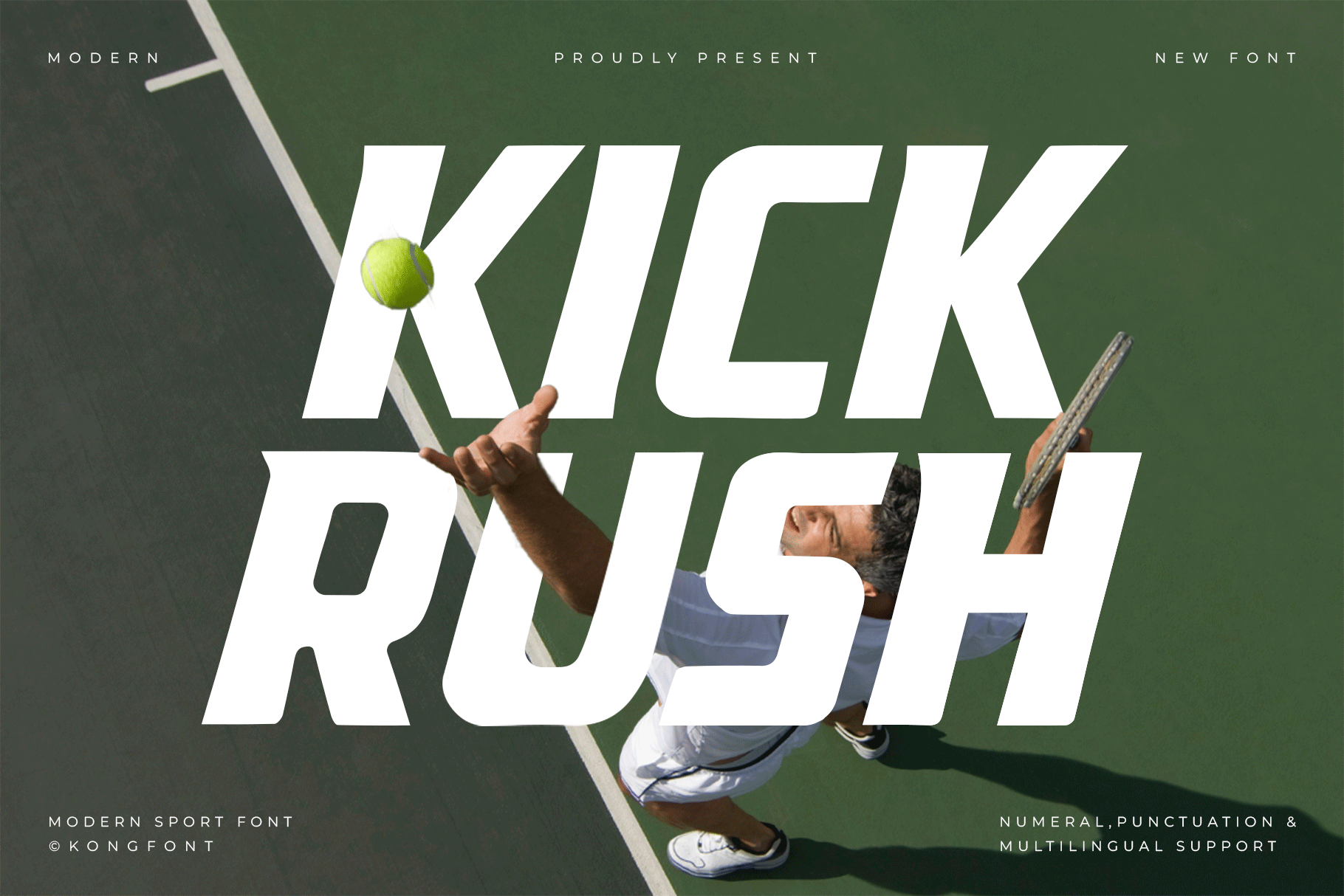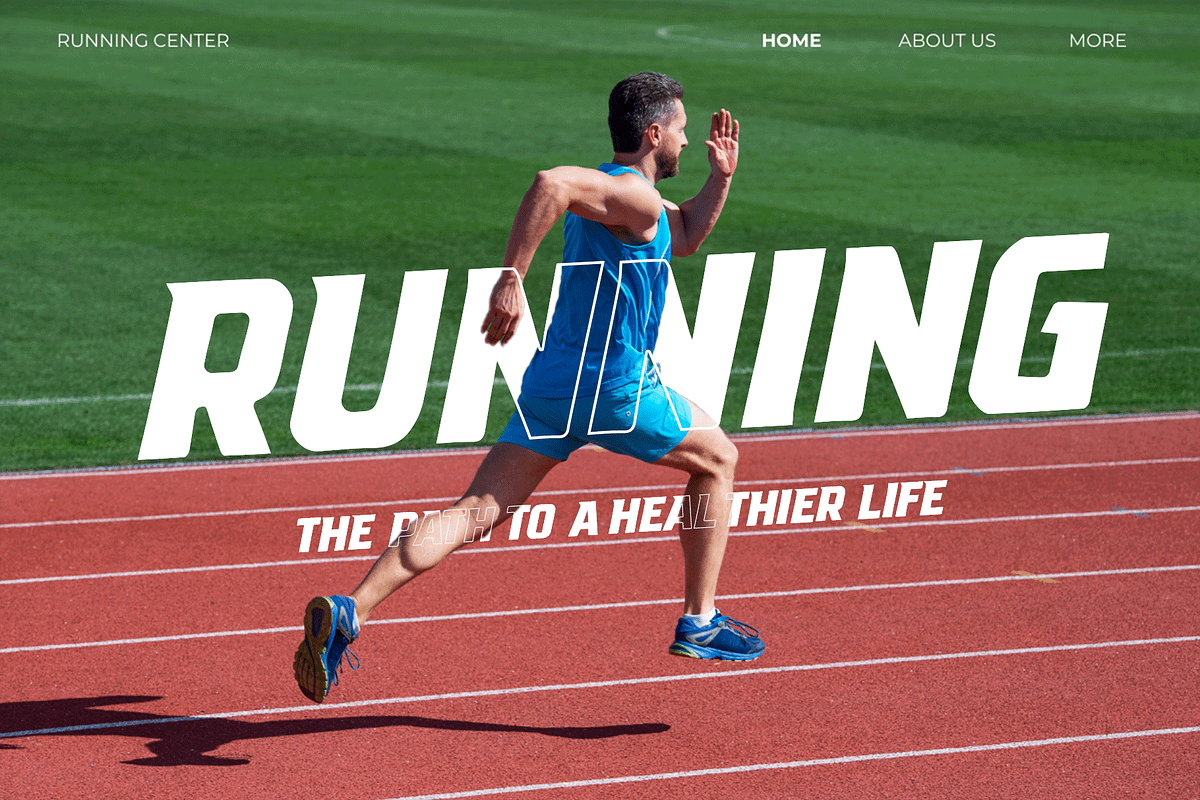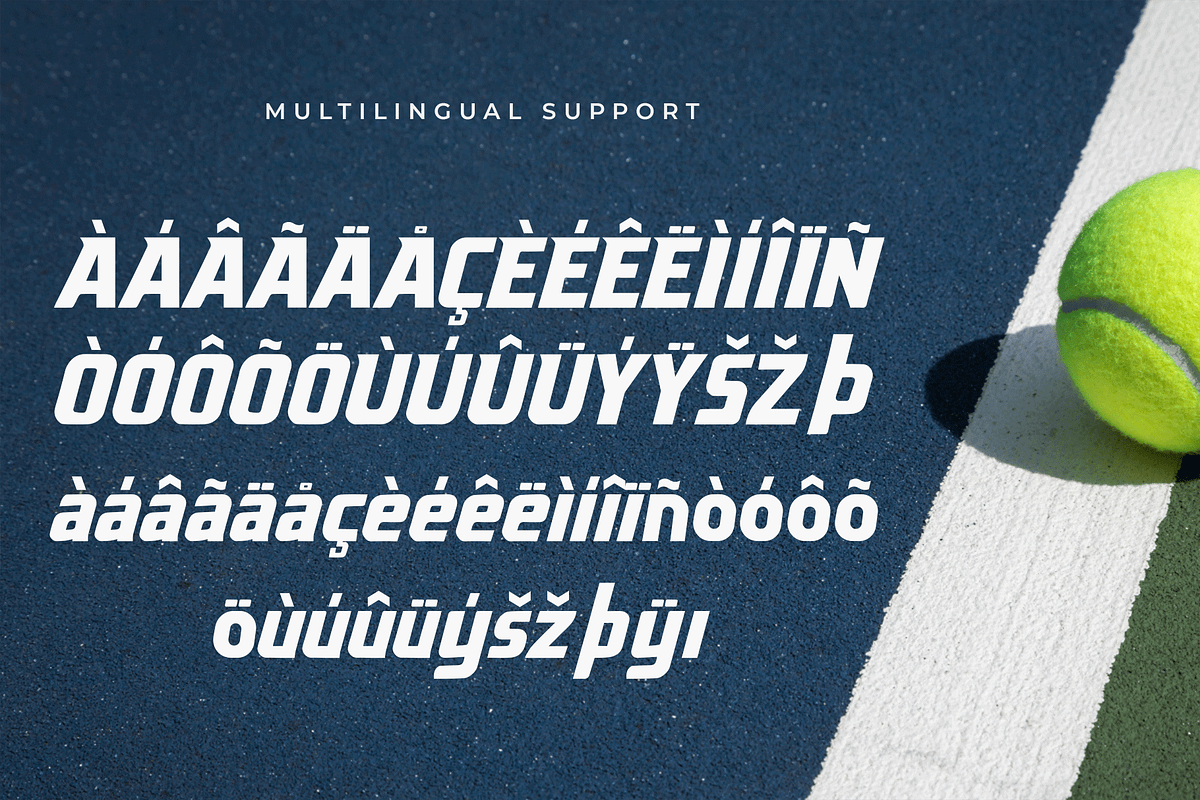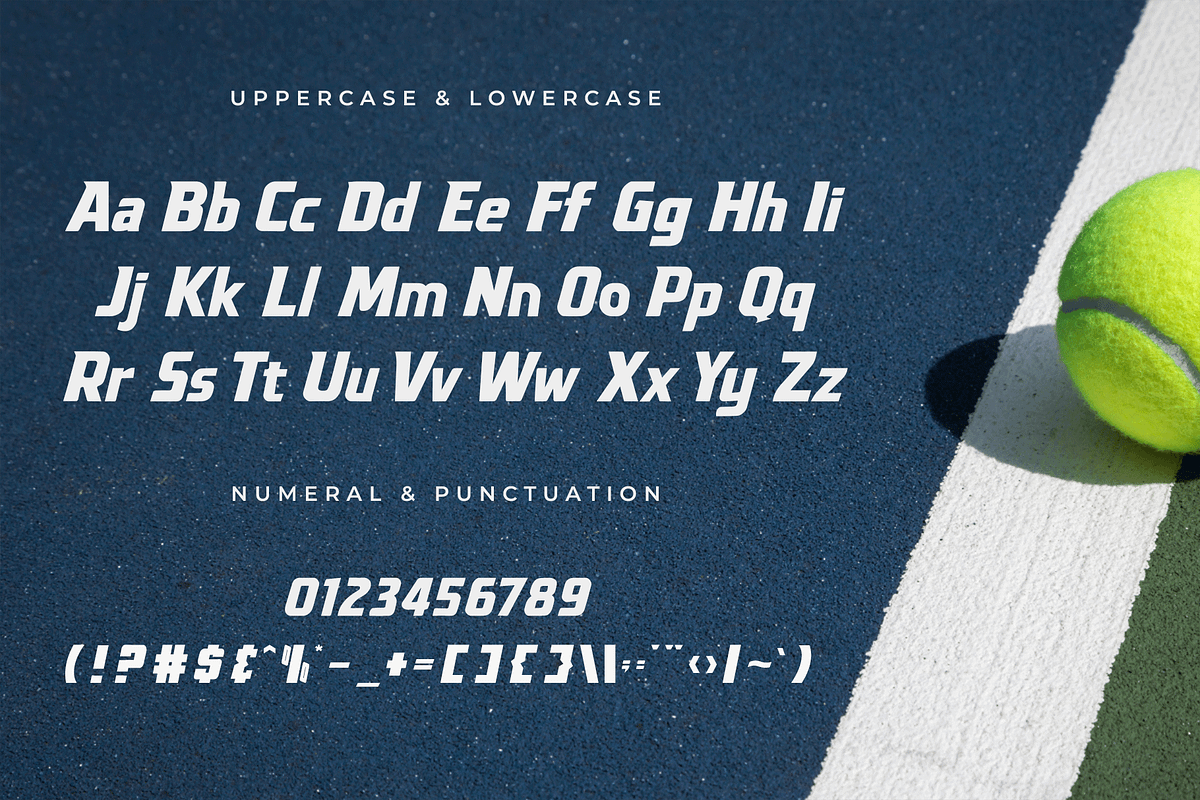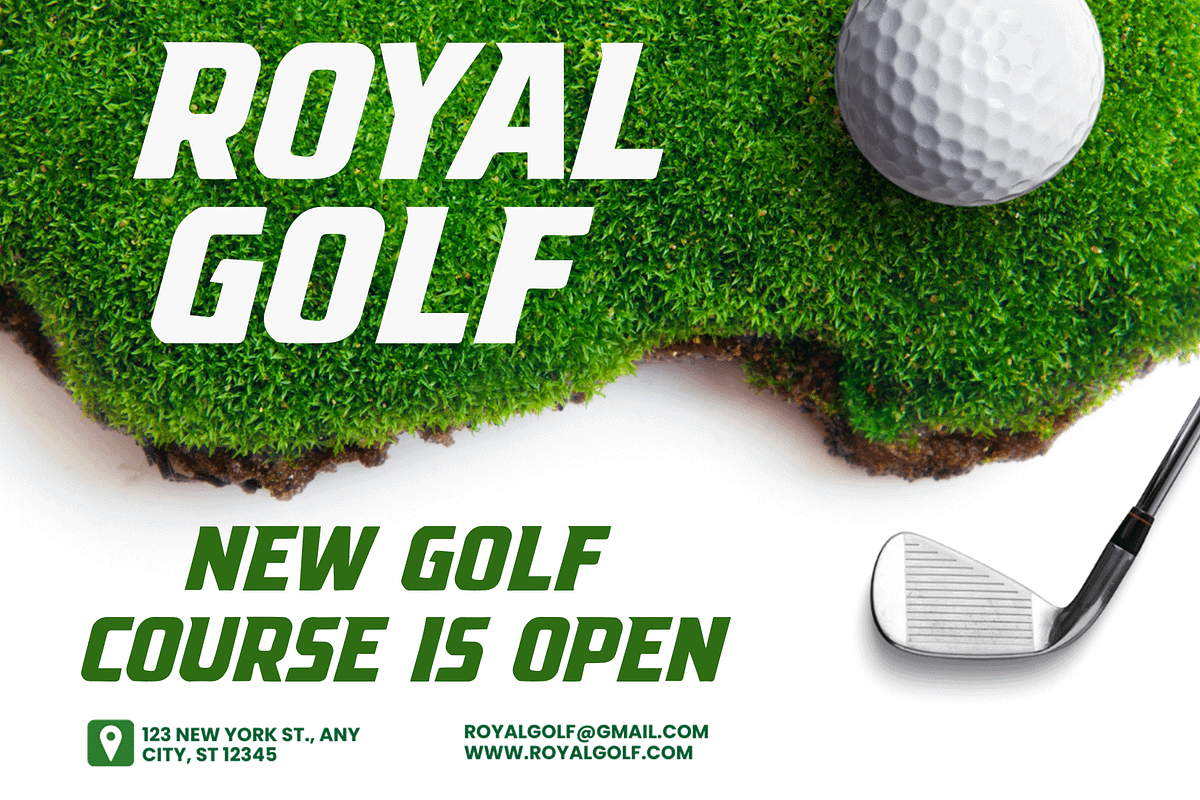
Kickrush – A Modern Sport Font
Kickrush is a modern sport font built to energize your visuals with speed, strength, and style. Designed with bold angles, dynamic lines, and a powerful stance, Kickrush is perfect for sports branding, team logos, athletic apparel, posters, game titles, and esports graphics.
This typeface commands attention with its aggressive design, delivering a sense of motion and intensity that perfectly captures the spirit of competition. Whether you're creating a championship-worthy logo or hyping up a sports event, Kickrush gives your project the competitive edge.
Let your typography sprint ahead of the rest with Kickrush — a must-have font for every bold, athletic, and action-driven design.